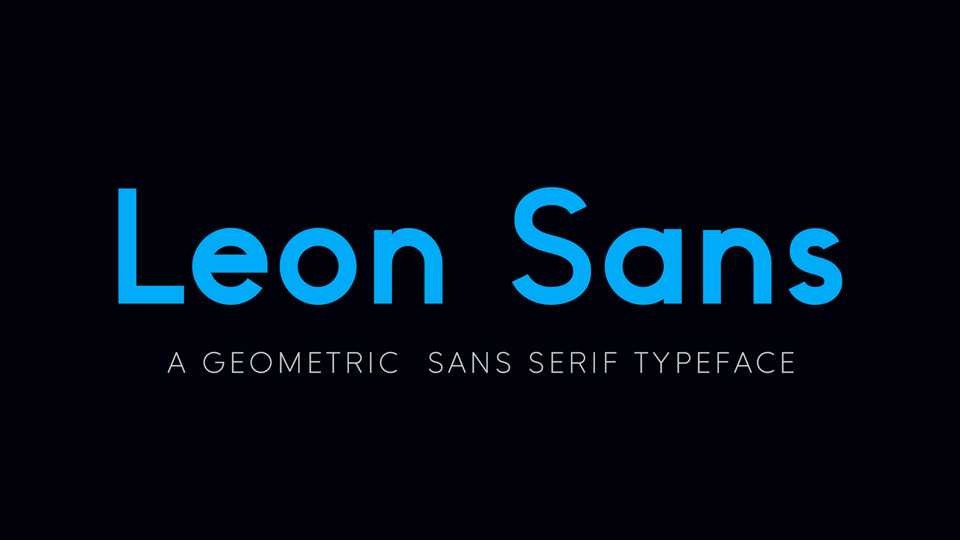
Download Leon Sans typeface, a sans serif font family made with code, With the coordinate values of the drawing points for each glyph, you can create custom shapes, effects or animations.
Designer: Jongmin Kim